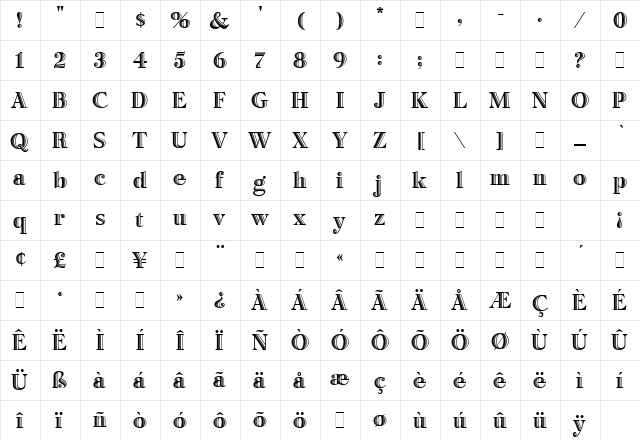
Bertie Regular
Design Context for Bertie Typeface
Bertie takes a measured approach to typography — its balanced proportions and neutral character make it a reliable workhorse for both digital and print work.
Pro Tip: Use Bertie in both headline and body roles to test its range before committing to a single application.